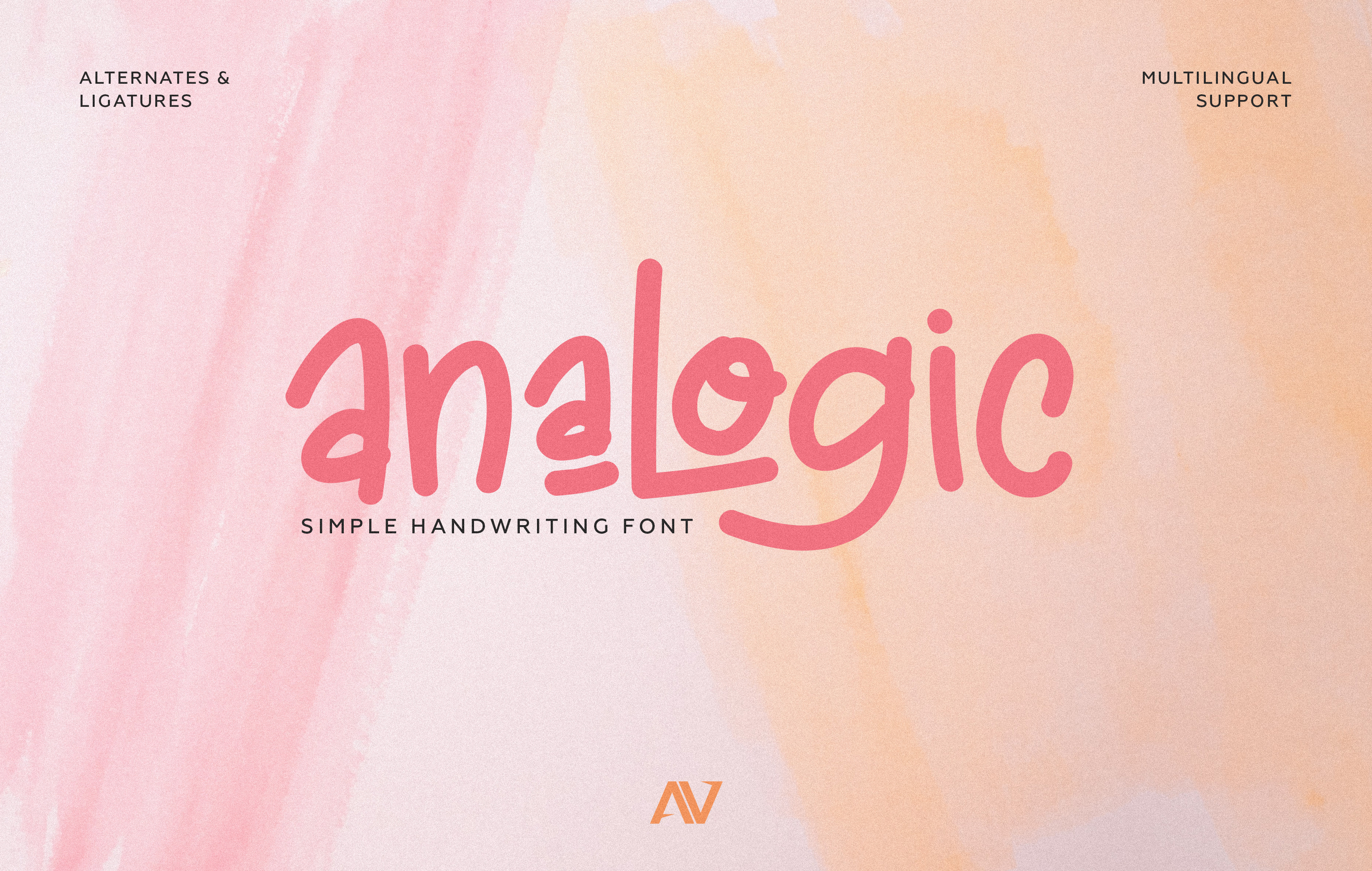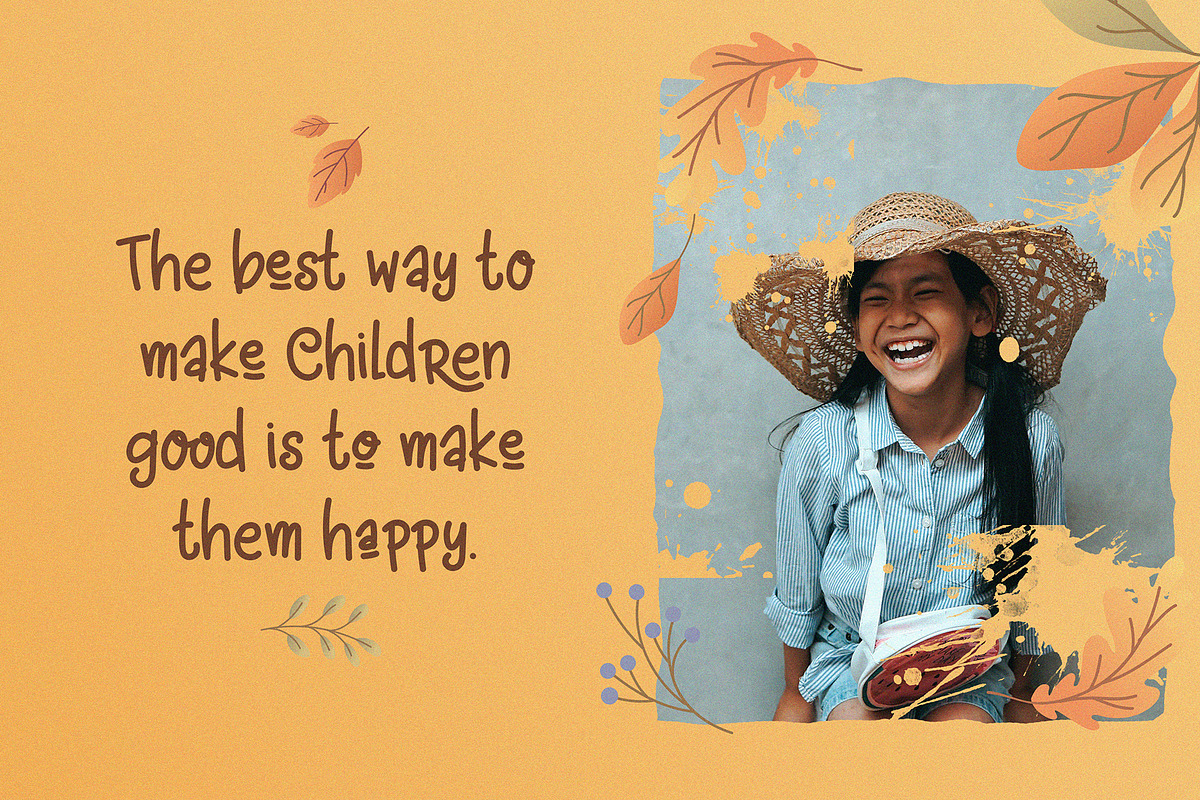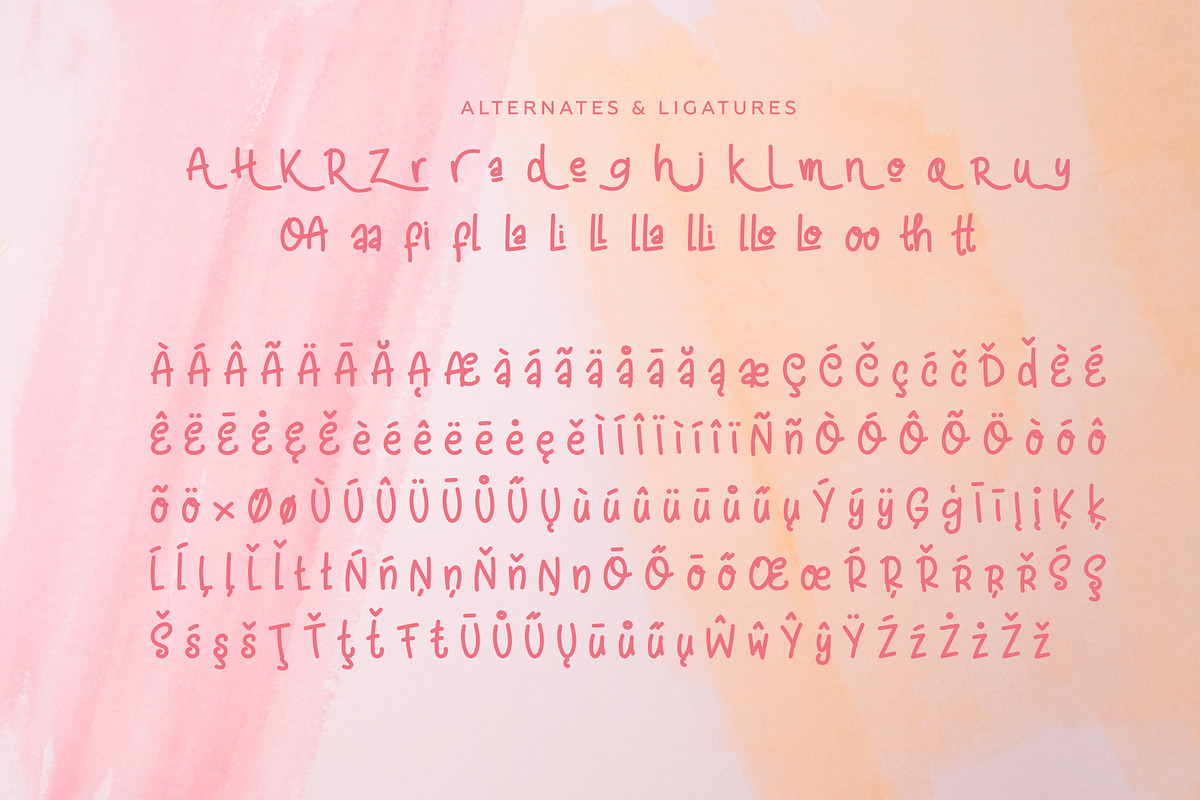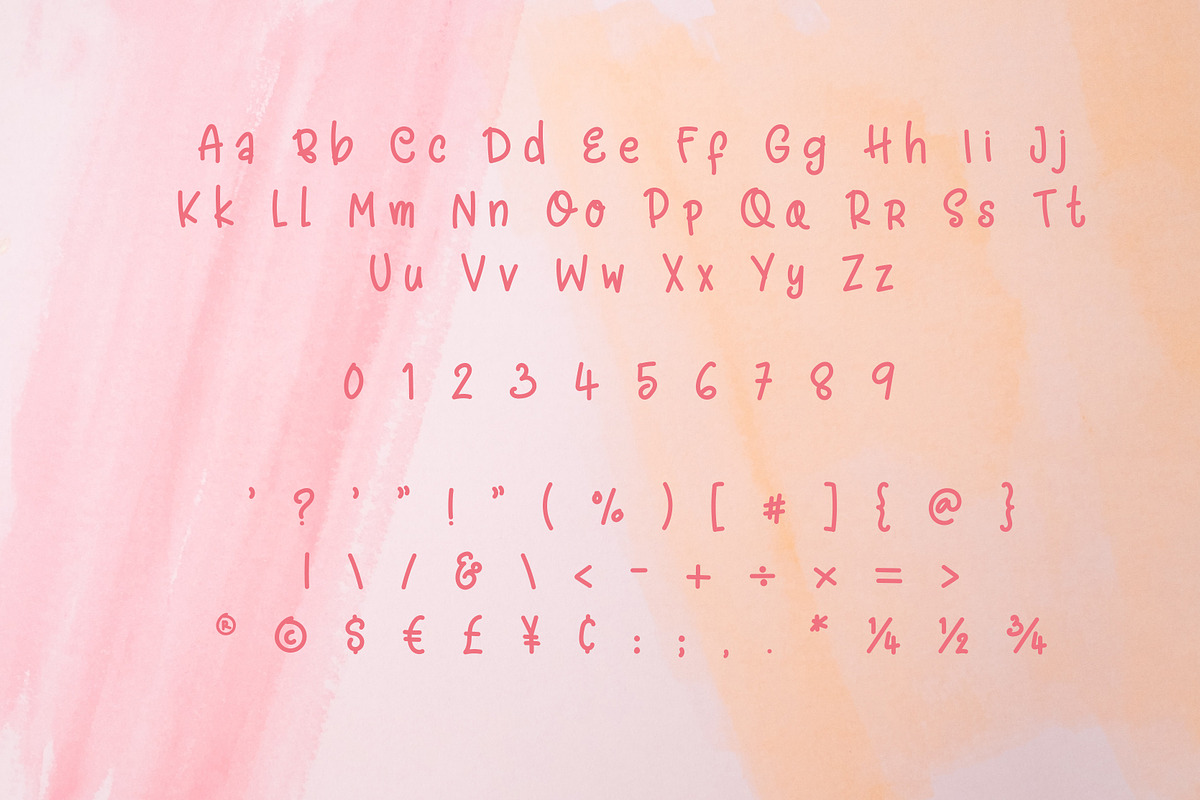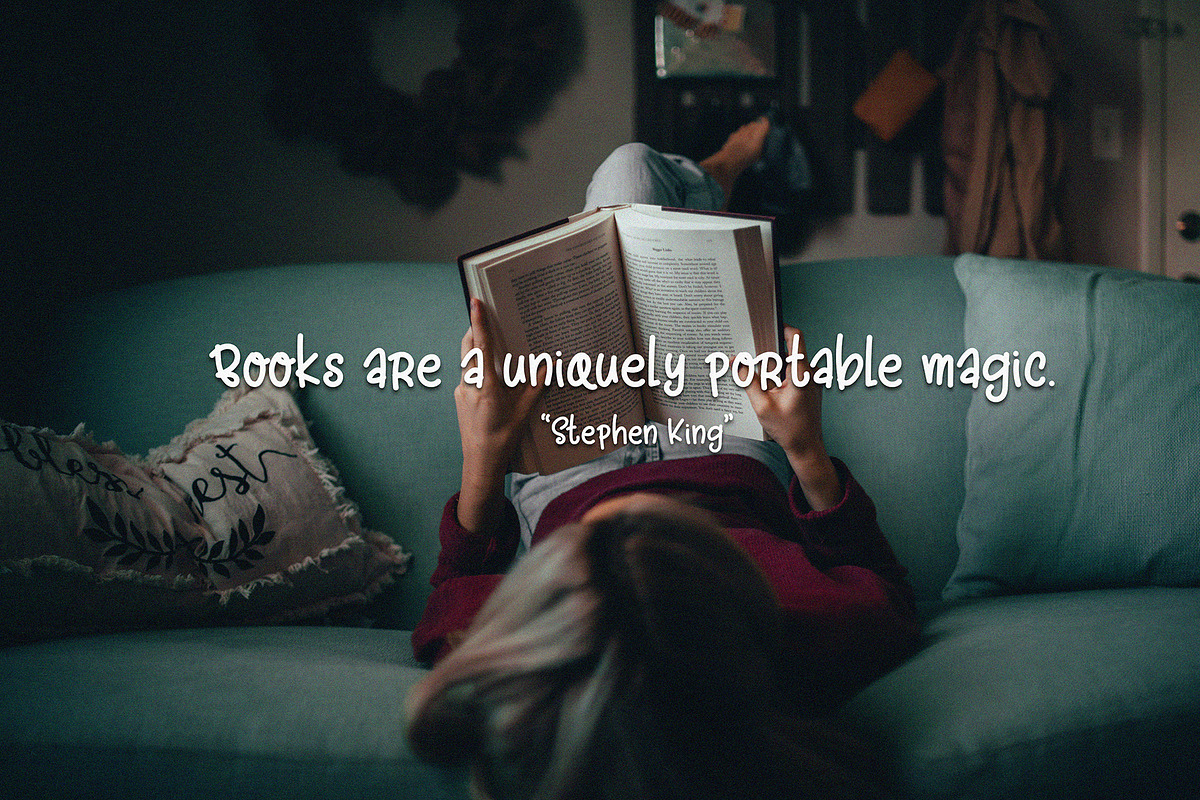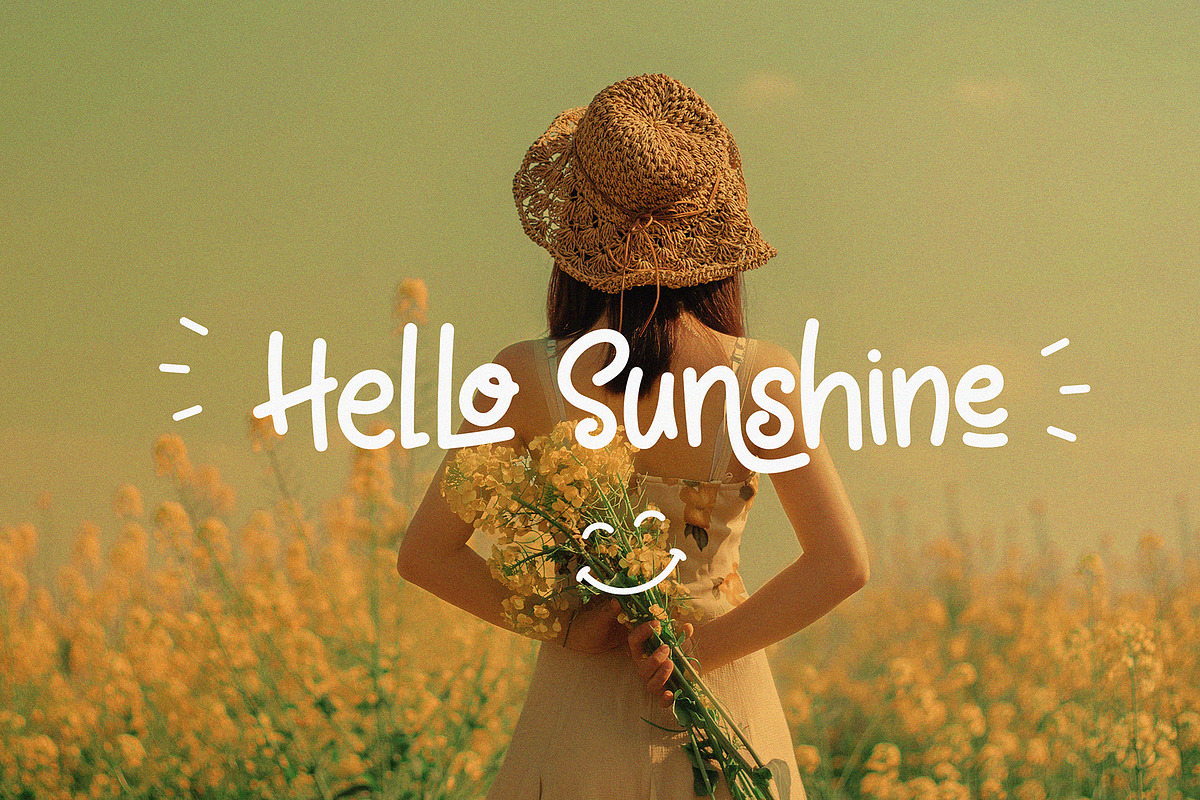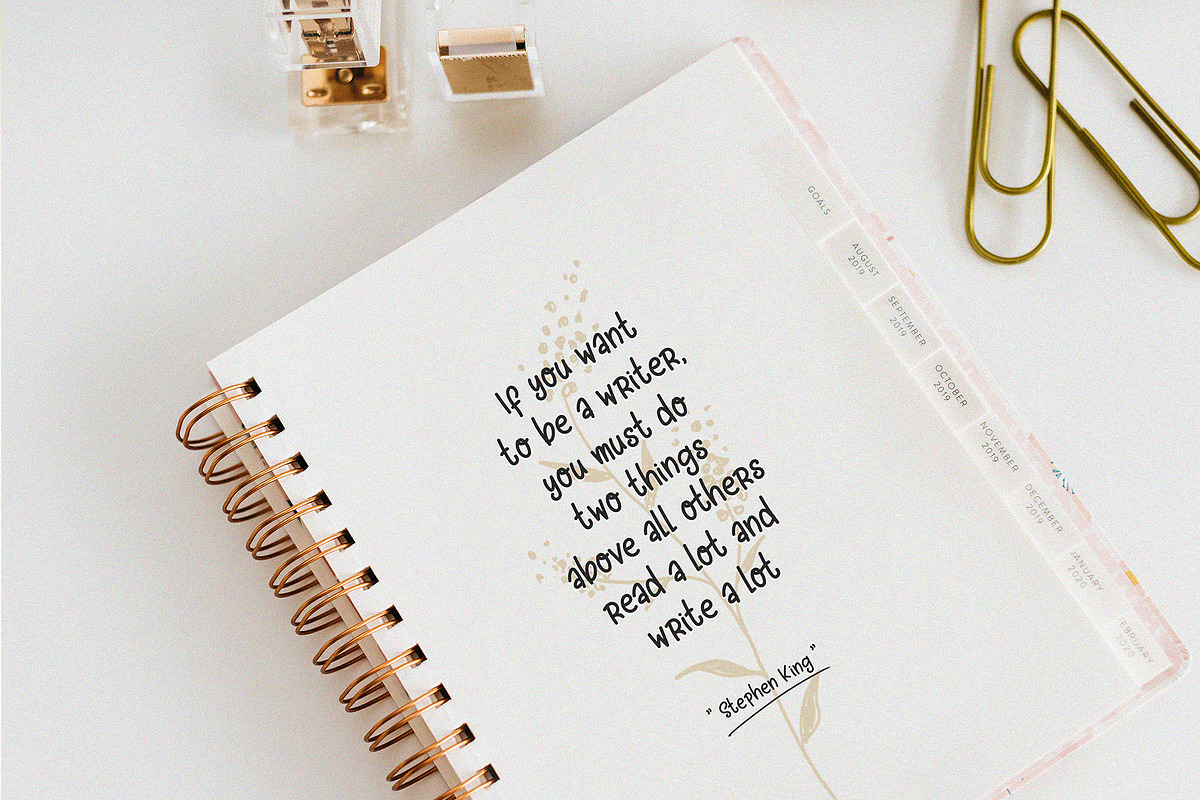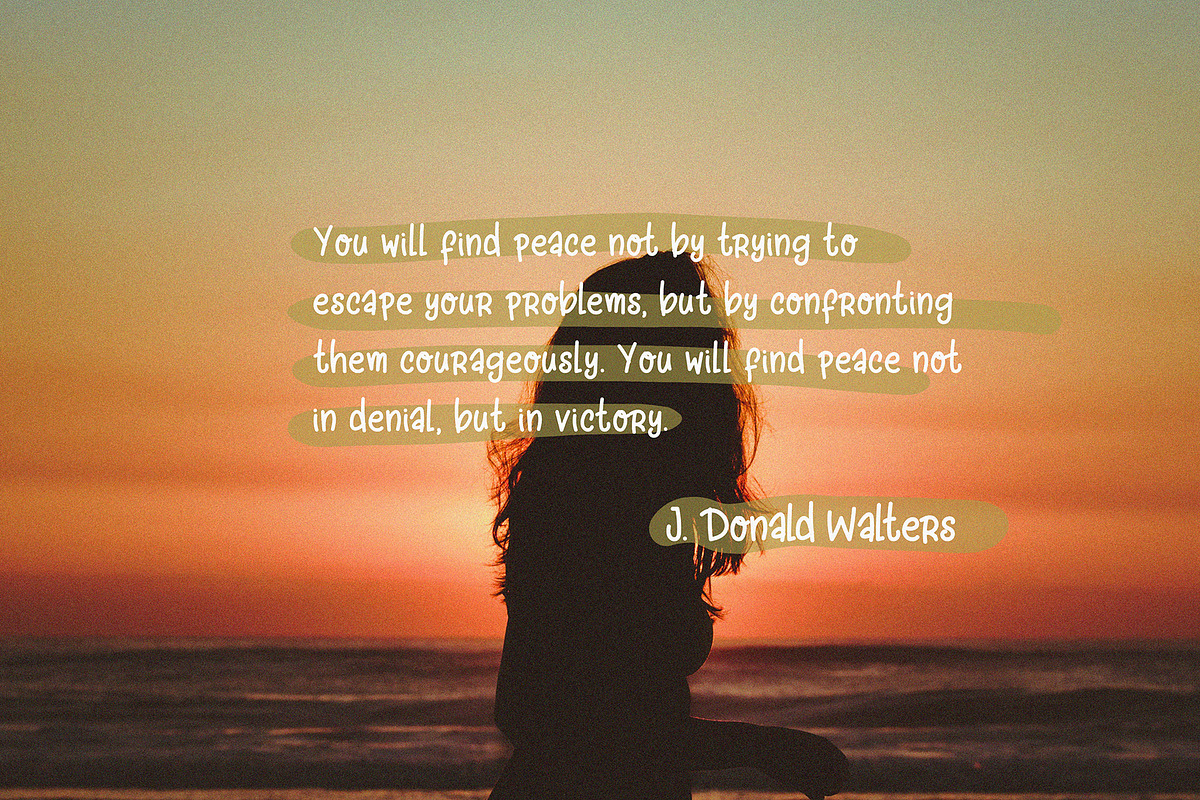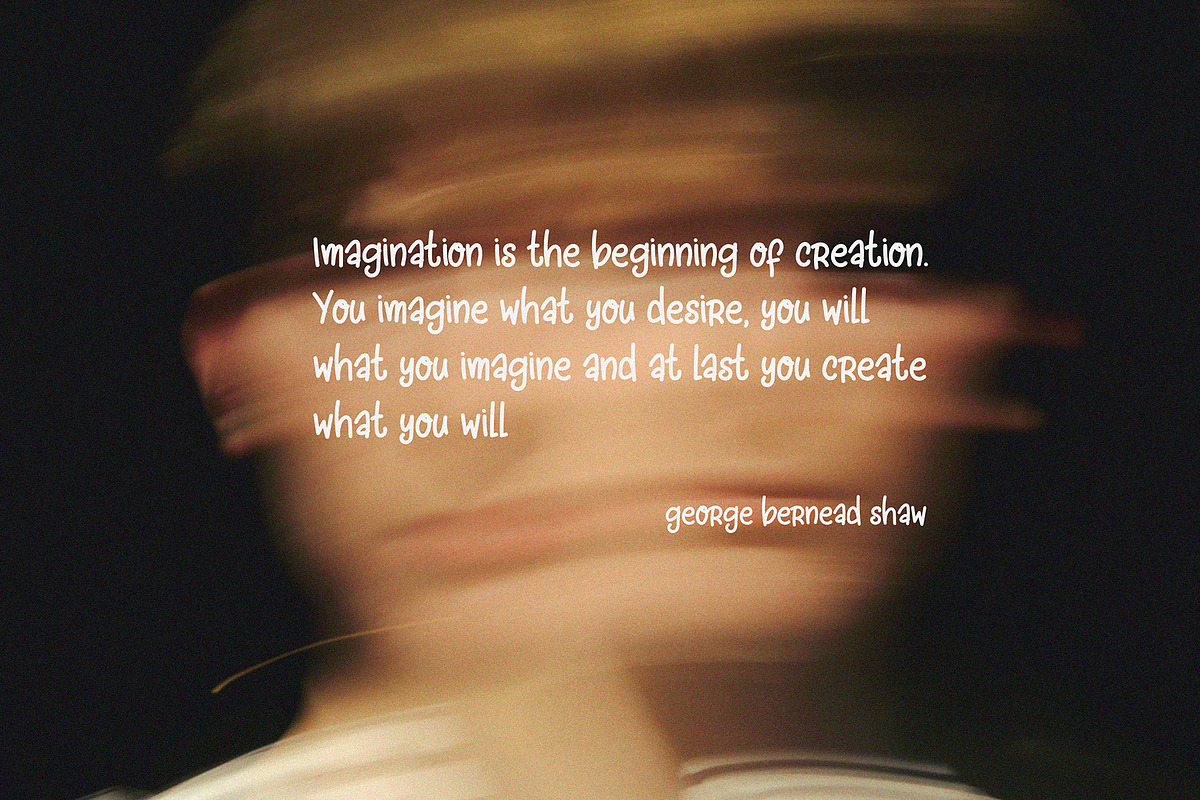
Analogic - Handwriting Font
Analogic Font born from a simple handwritten style. This font will help you to create special and touching typographical designs for your display quote projects, this font perfect for headings, greeting cards, product packaging, book cover, printed quotes, apparel design, album covers, etc.